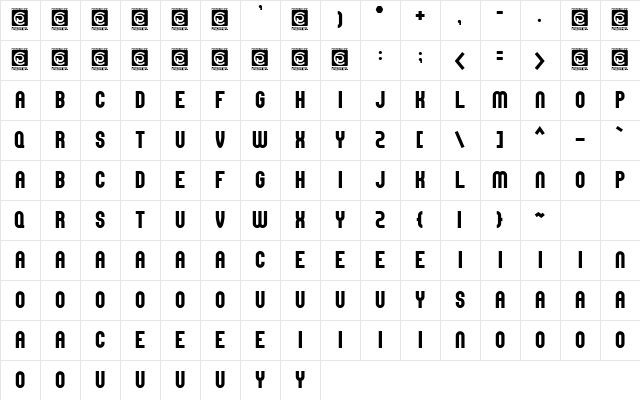
High Mount Free
Design Context for High Mount Typeface
High Mount is a composed and adaptable typeface that performs quietly and consistently across a wide range of design contexts.